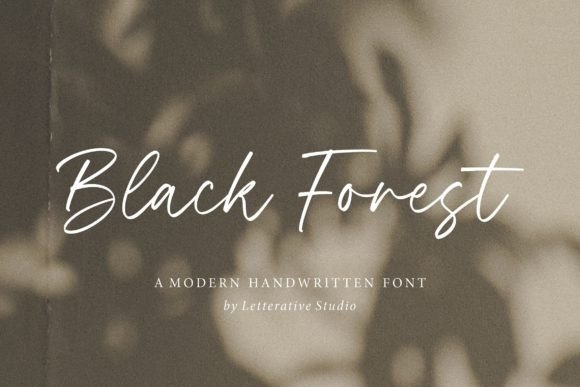
The Ultimate Guide to Black Forest Font: A Modern Handwritten Favorite
With its modern handwritten style, Black Forest Font instantly elevated my design and helped me deliver a stunning final product. Since then, I’ve been using it for various projects, from crafts to digital designs, and I can confidently say it’s become my go-to font. In this article, I’ll share my experience with Black Forest Font, its features, and how to make the most of it.
An Honest Review of Black Forest Font
What I Love About Black Forest Font ✨
- 💫 Unique and modern handwritten style that’s perfect for a wide range of projects
- 🎨 Versatile and adaptable to different design styles and themes
- 🔍 Extensive character set, including glyphs and stylistic alternates
- ⚠️ Some users may find the font a bit too casual for formal projects
- 🤔 Limited availability of certain OpenType features in certain software
The Backstory Behind Black Forest Font
Black Forest Font was designed with the intention of creating a modern, handwritten font that’s both elegant and approachable. The designer aimed to craft a font that would be versatile and adaptable to different design styles and themes. The result is a font that’s perfect for a wide range of projects, from crafts to digital designs.
Q: What type of projects is Black Forest Font best suited for?
A: Black Forest Font is a versatile font that’s suitable for a wide range of projects, including crafts, digital designs, presentations, and greeting cards.
Q: Is Black Forest Font available in different weights or styles?
A: Currently, Black Forest Font is available in a single weight, but the designer may release additional weights or styles in the future.